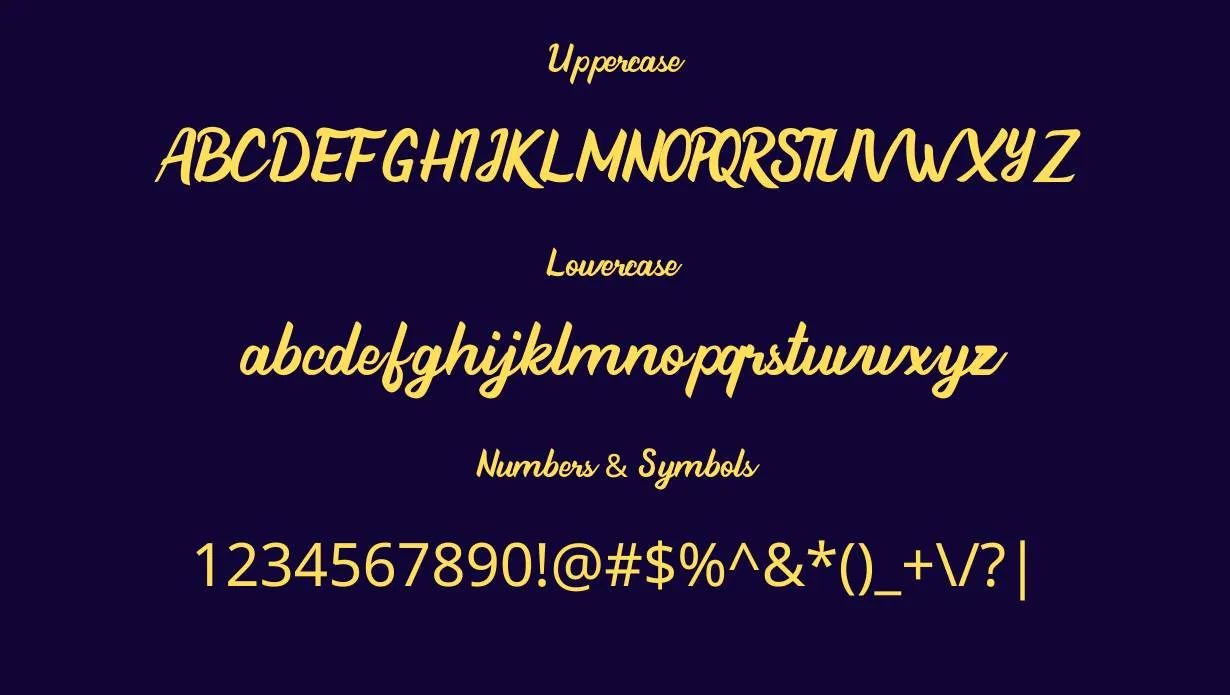
The Beathy Font is a fun and vibrant typeface that is commonly used in designs for children’s materials, whimsical branding, or entertaining social media posts. When utilized in Adobe Photoshop, this font can be employed to craft cheerful and lively text, perfect for children’s book covers or playful event invitations.
When applied through CSS, it brings a light-hearted and fun element to web content, perfect for kids’ websites or playful blogs. Canva users frequently choose this font for designing colorful and vibrant social media posts, children’s party invitations, or playful brand advertisements, creating a sense of joy and liveliness.